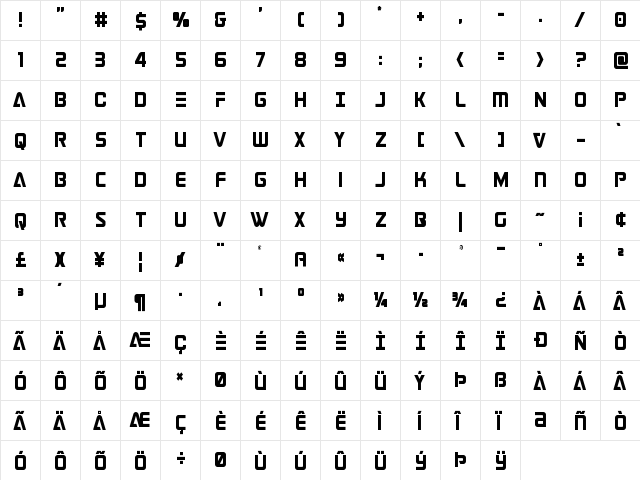
Astro Armada Condensed Regular
Design Context for Astro Armada Condensed Typeface
Astro Armada Condensed is a composed and adaptable typeface that performs quietly and consistently across a wide range of design contexts. The condensed width makes it efficient for tight spaces without sacrificing legibility.